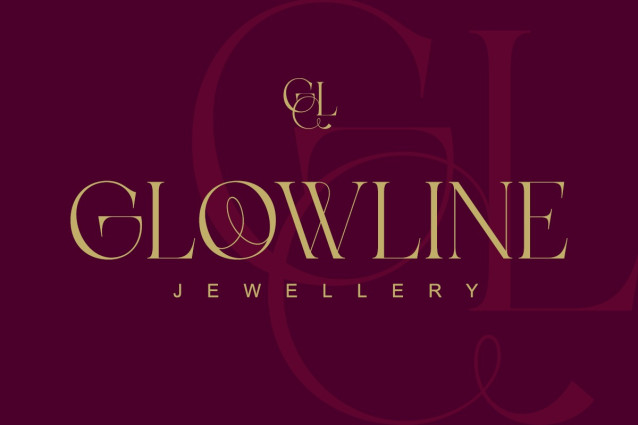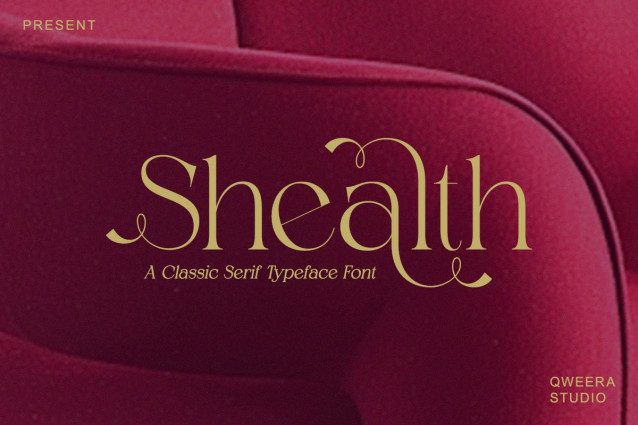
Shealth Font
Shealth Font a serif typeface that blends classic sophistication with modern clarity. Designed for elegance and readability, Shealth delivers a confident and timeless presence across logos, editorials, and premium branding.
Every character is carefully crafted to feel polished, professional, and versatile.